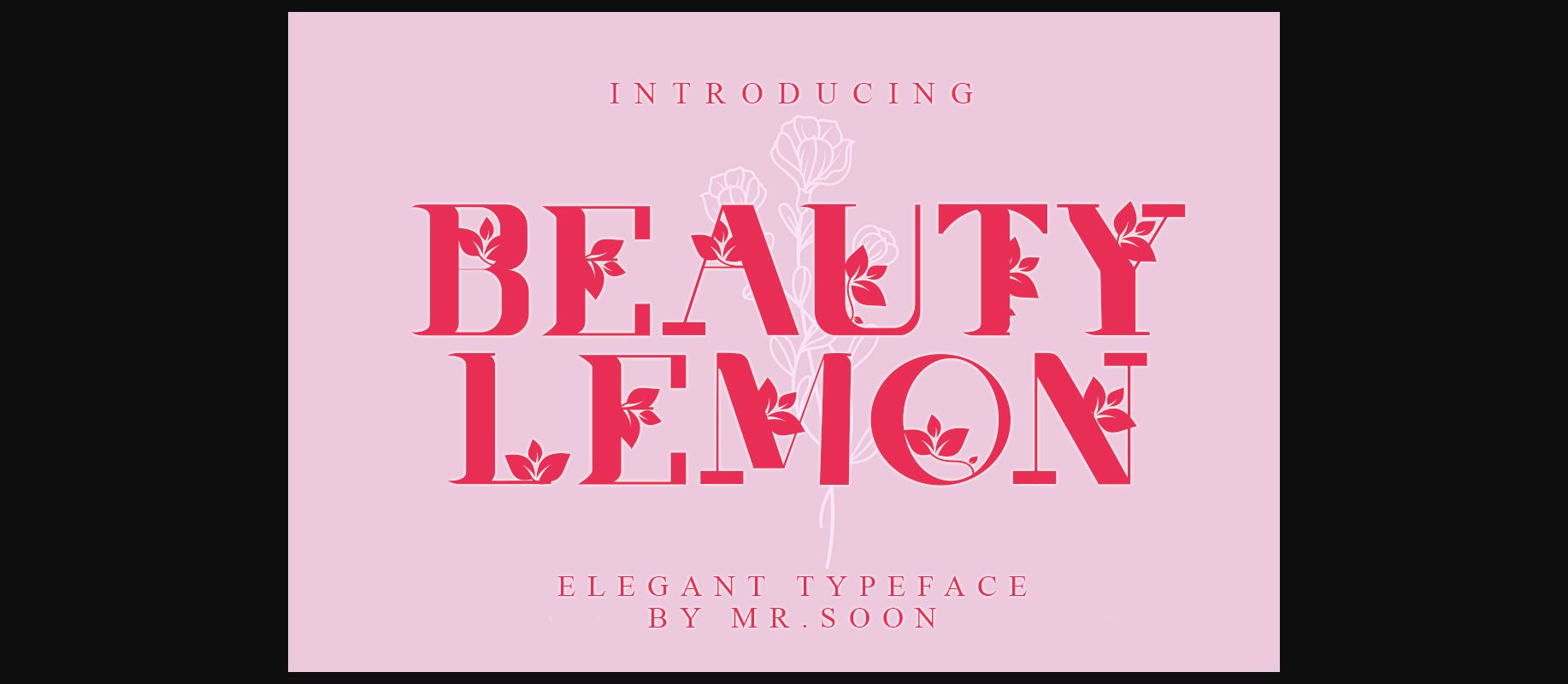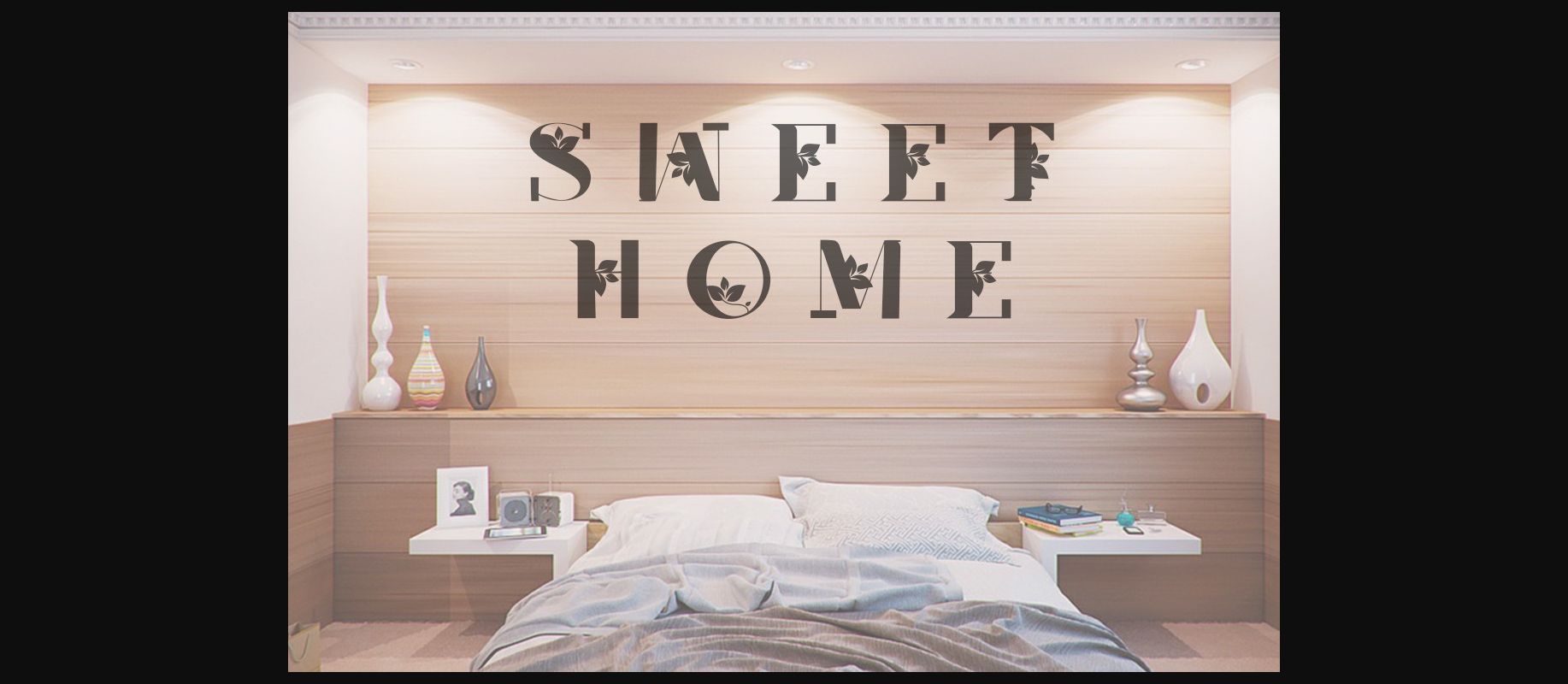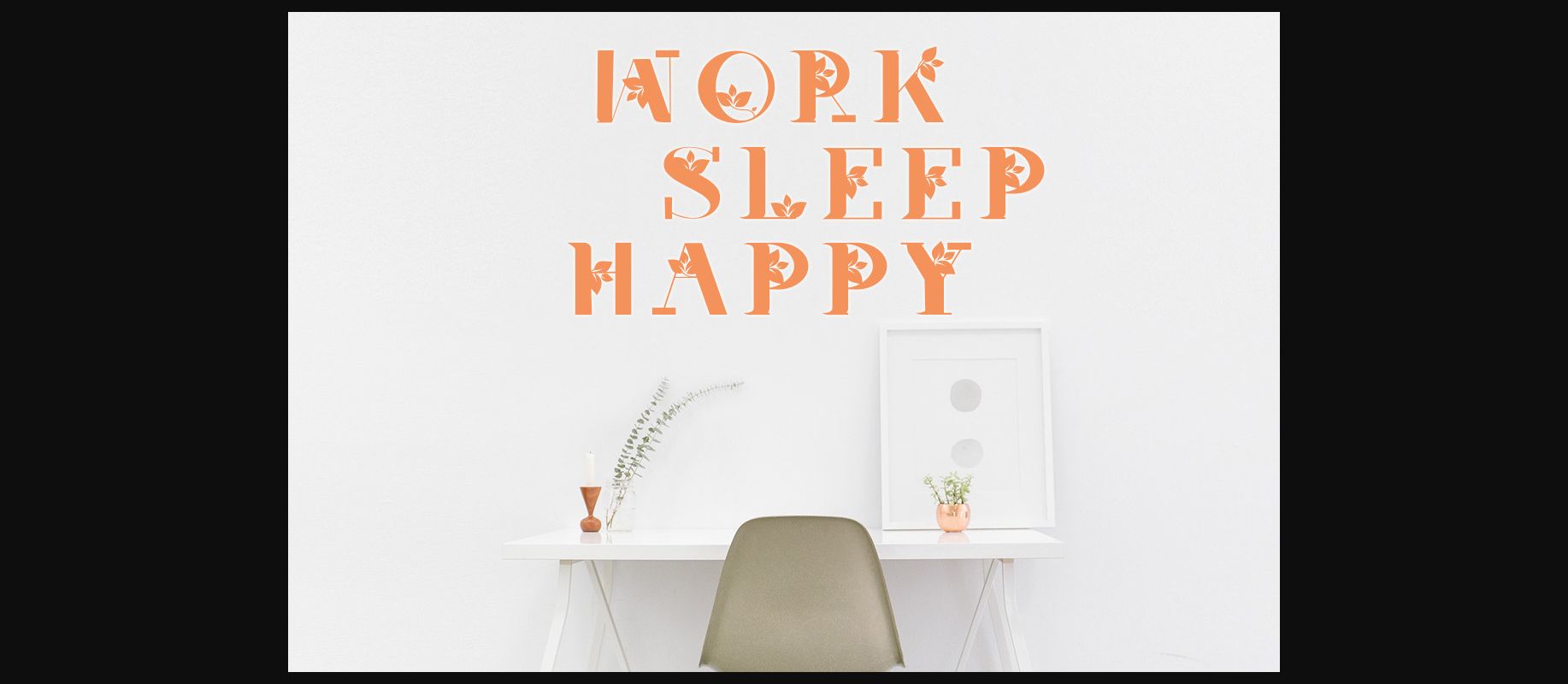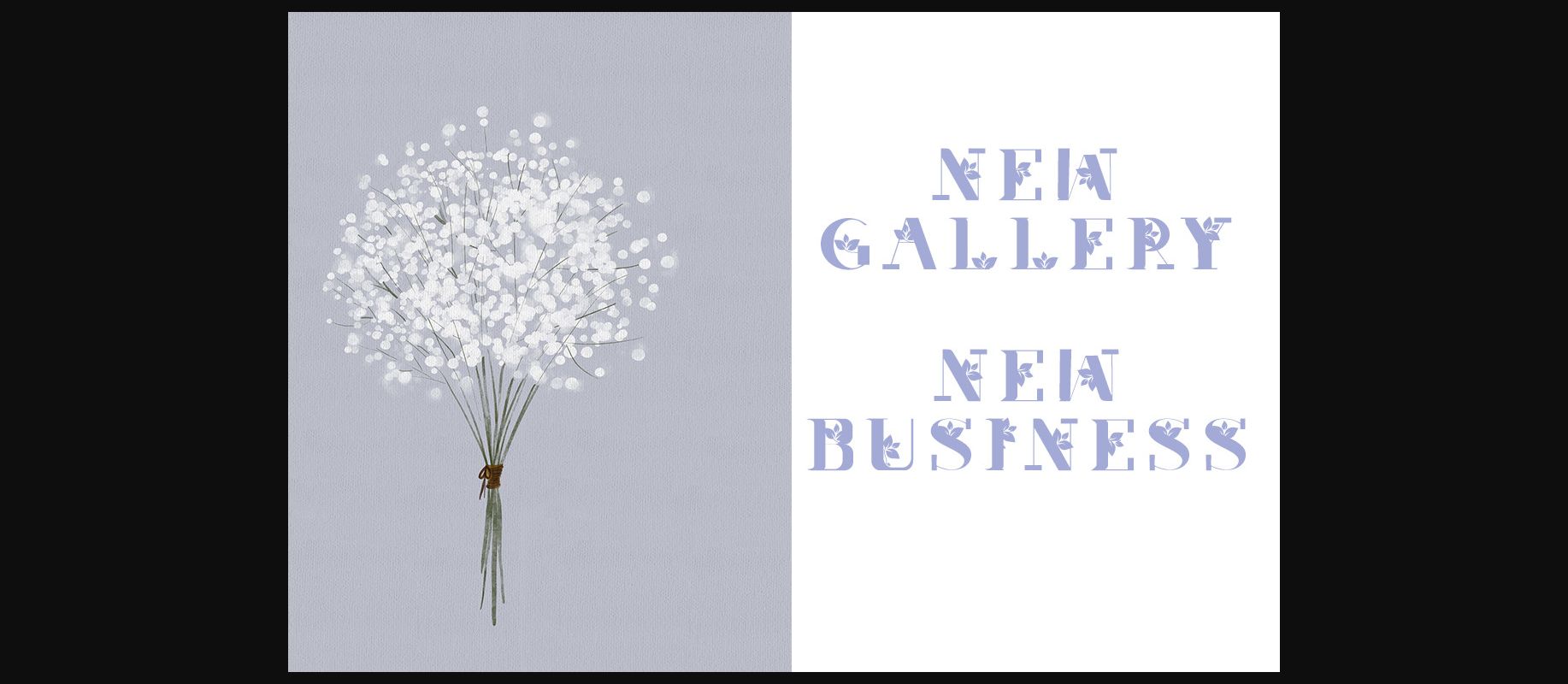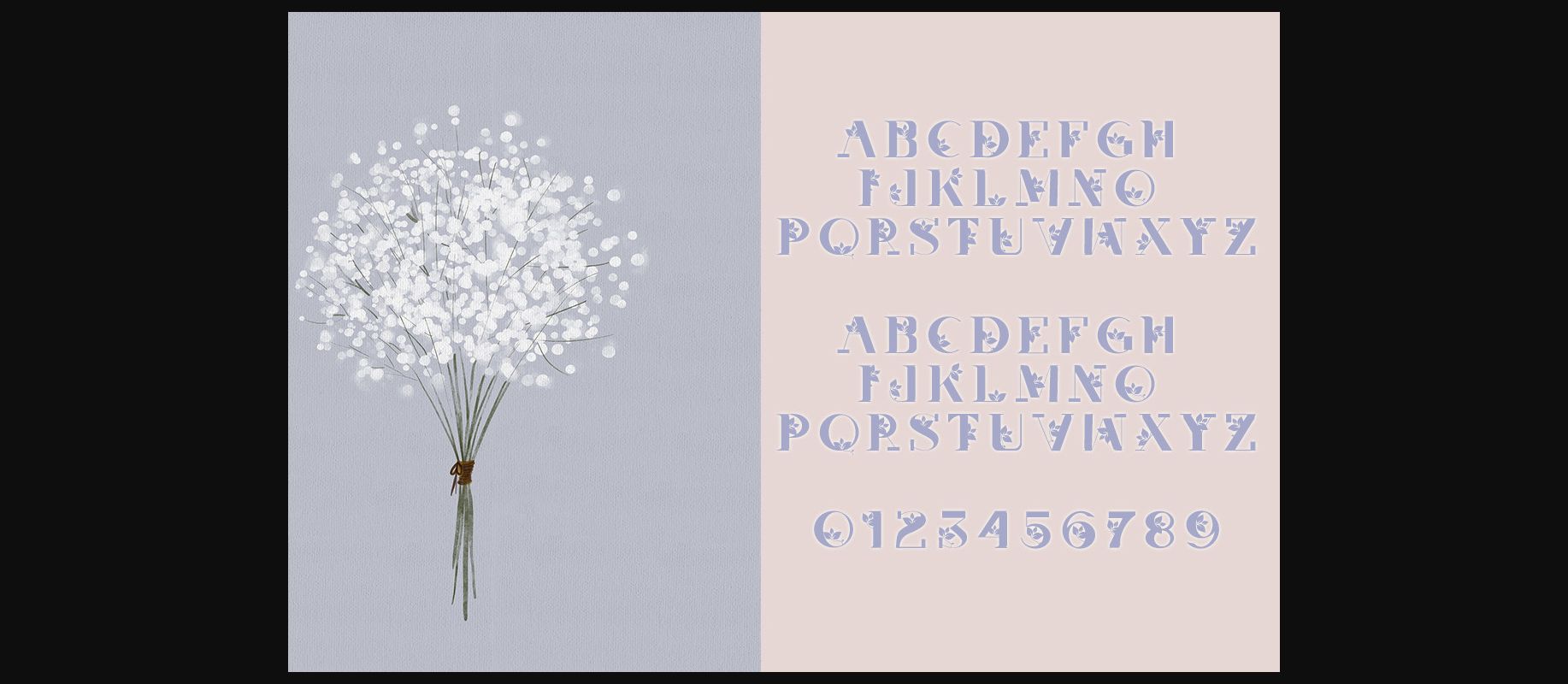
HomeDecorative FontsBeauty Lemon Font Decorative Fonts Beauty Lemon Font FacebookXPinterestWhatsApp 1 of 7 ... Beauty Lemon Font Poster 2... Beauty Lemon Font Poster 3... Beauty Lemon Font Poster 4... Beauty Lemon Font Poster 5... Beauty Lemon Font Poster 6... Beauty Lemon Font Poster 7... About Beauty Lemon Font Beauty Lemon is an attractive decorative font featuring solemn serif characters and a lovely floral accent to each letter. Add it confidently to your projects, and you won’t be disappointed! DOWNLOAD NOW People also explored Cool Daddy Ristea Spot Font Kaizena Font Handwriting Font Powerfulm Samara Font Easy Messy Font Hacim Family Font Digimon Font Design System C 304 0 TagsBeauty Lemon Font Previous articleHalloween Midnight FontNext articleUnique Spots Font LEAVE A REPLY Cancel reply Comment: Please enter your comment! Name:* Please enter your name here Email:* You have entered an incorrect email address! Please enter your email address here Website: Save my name, email, and website in this browser for the next time I comment. Personal Use Free Arnprior Personal Use Free Read more about this font Hatchill Personal Use Free Read more about this font Bitcrusher Condensed Bold Personal Use Free Read more about this font Aseline Personal Use Free Read more about this font BLOG Free vs Paid Fonts: Why Investing in Premium Fonts Is Worth It Free vs Paid Fonts: Why Premium Fonts Are Worth It in 2025 The debate of free vs paid fonts continues in the design world. While... To increase your work productivity, choose the most readable fonts. Fonts That Capture the Spirit of New York City Using Fonts in Digital Marketing: Tips to Strengthen Your Brand Identity